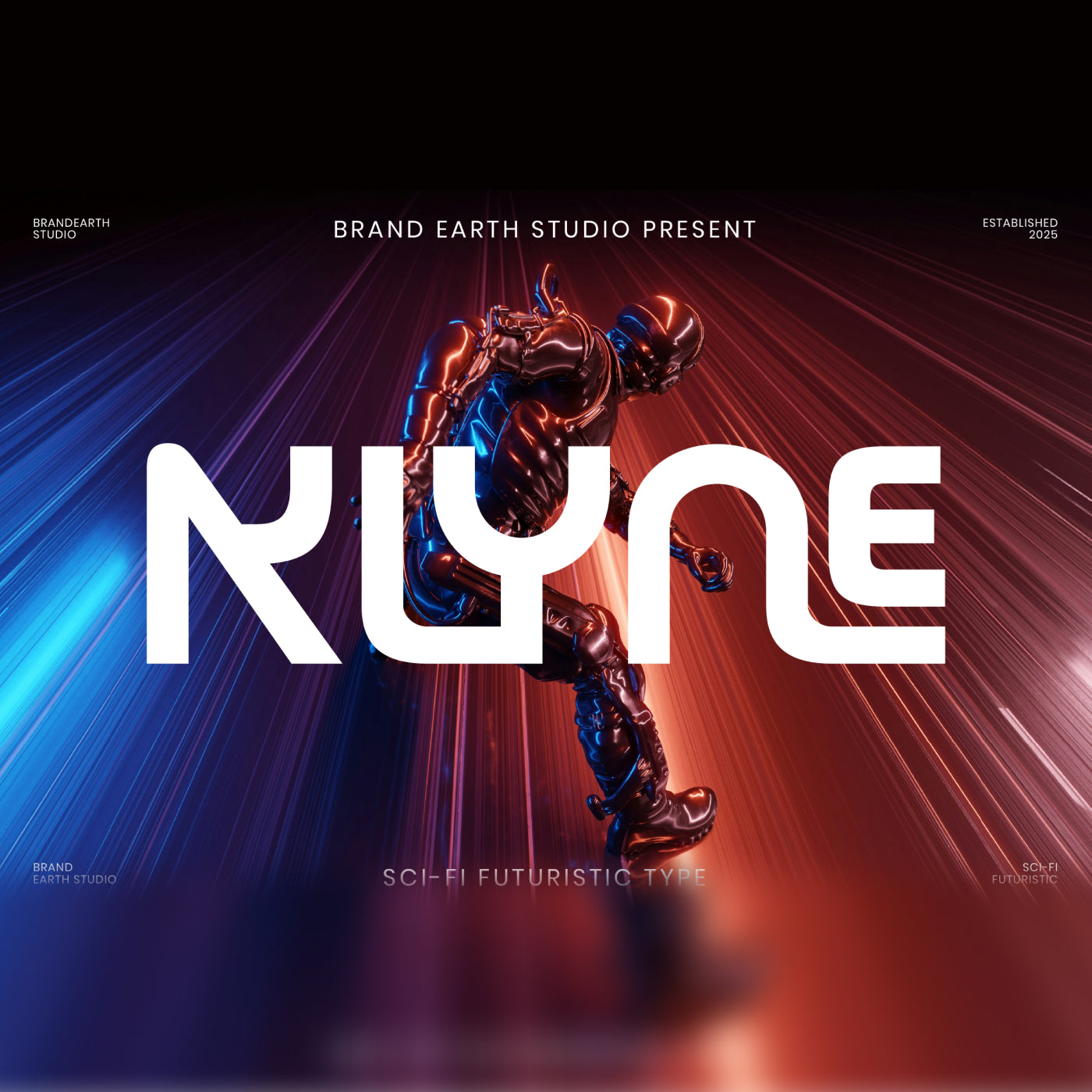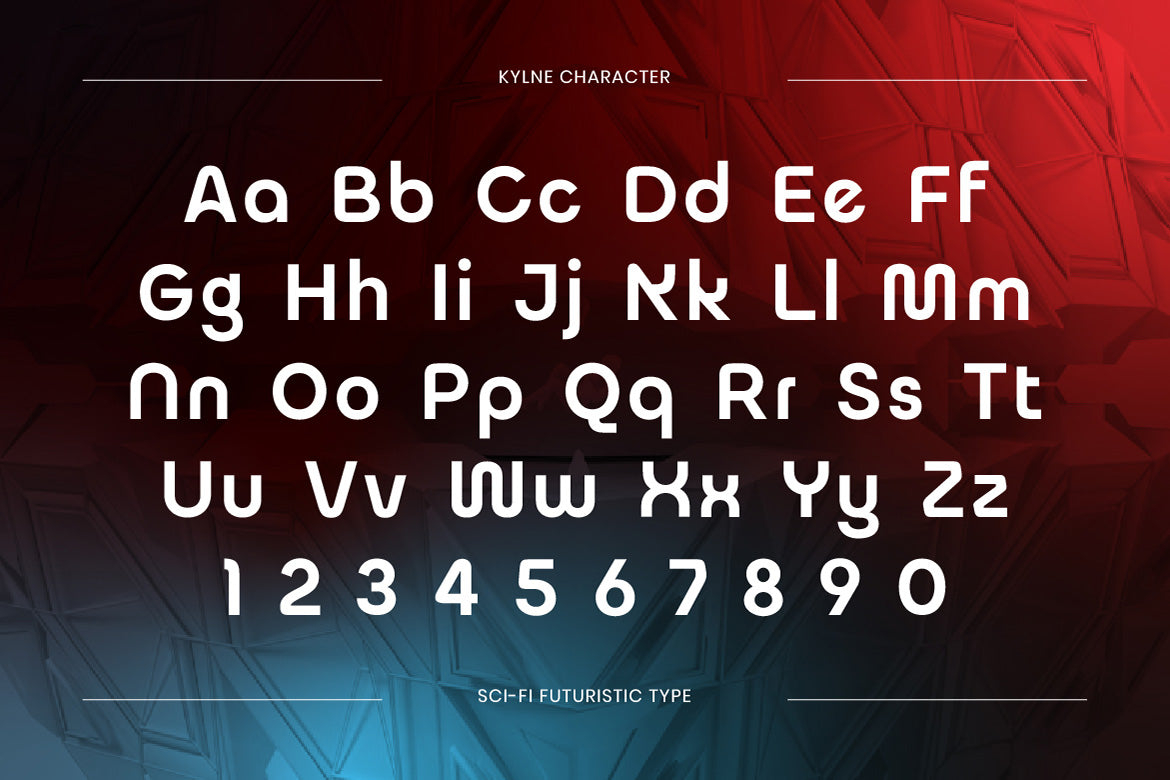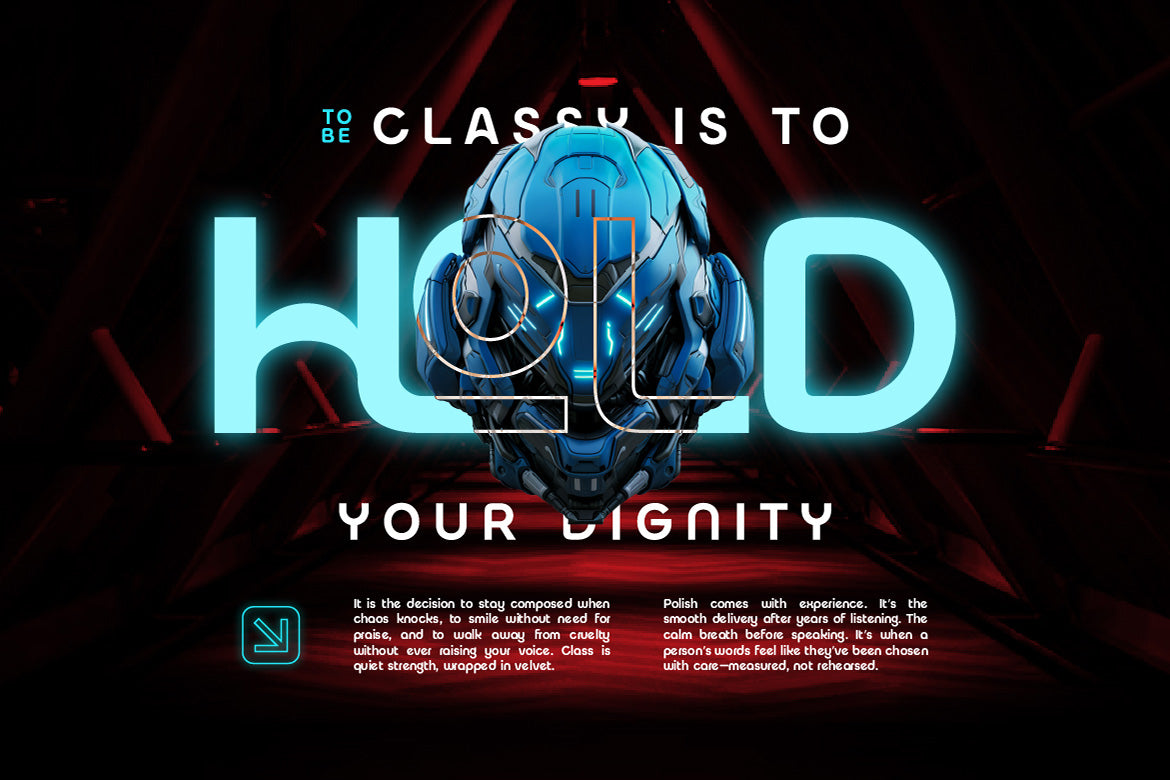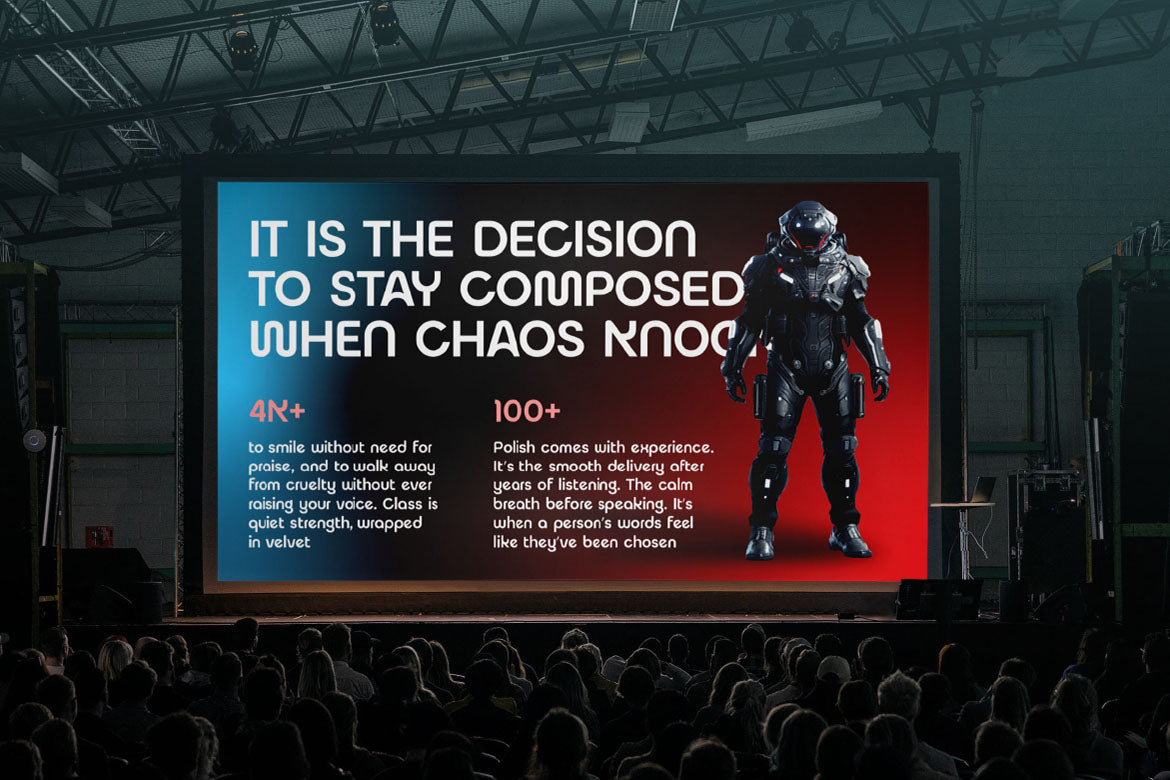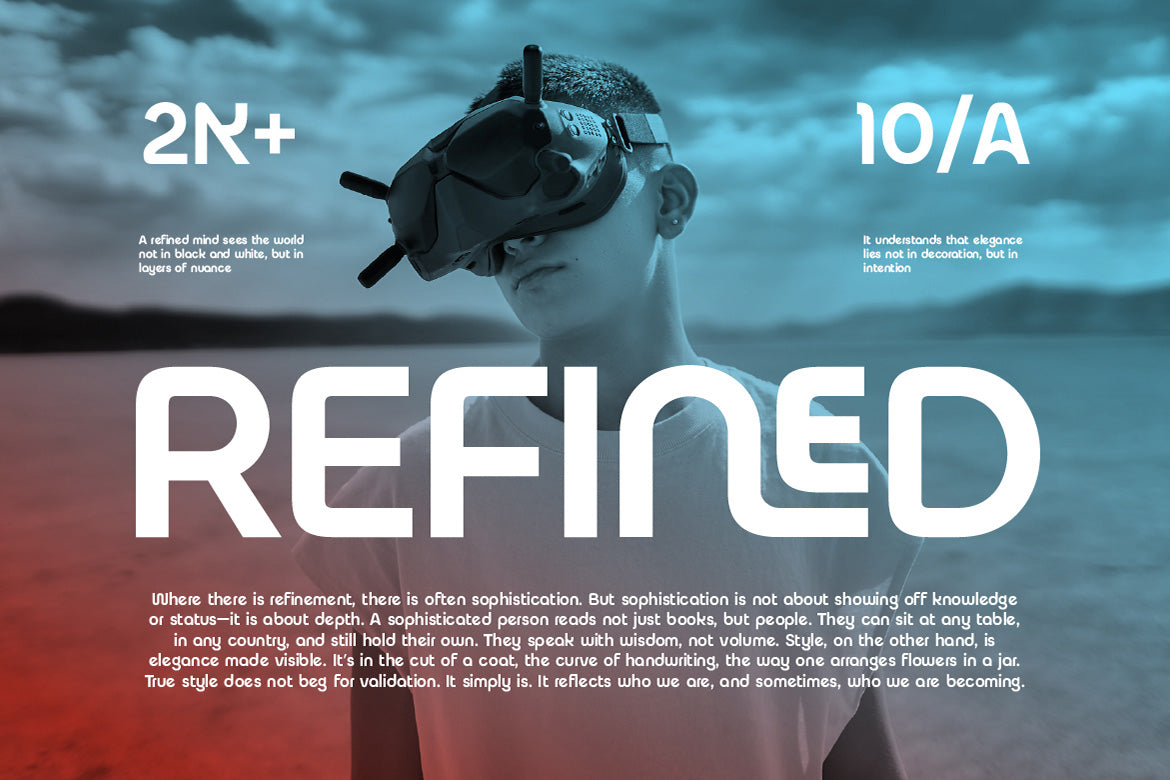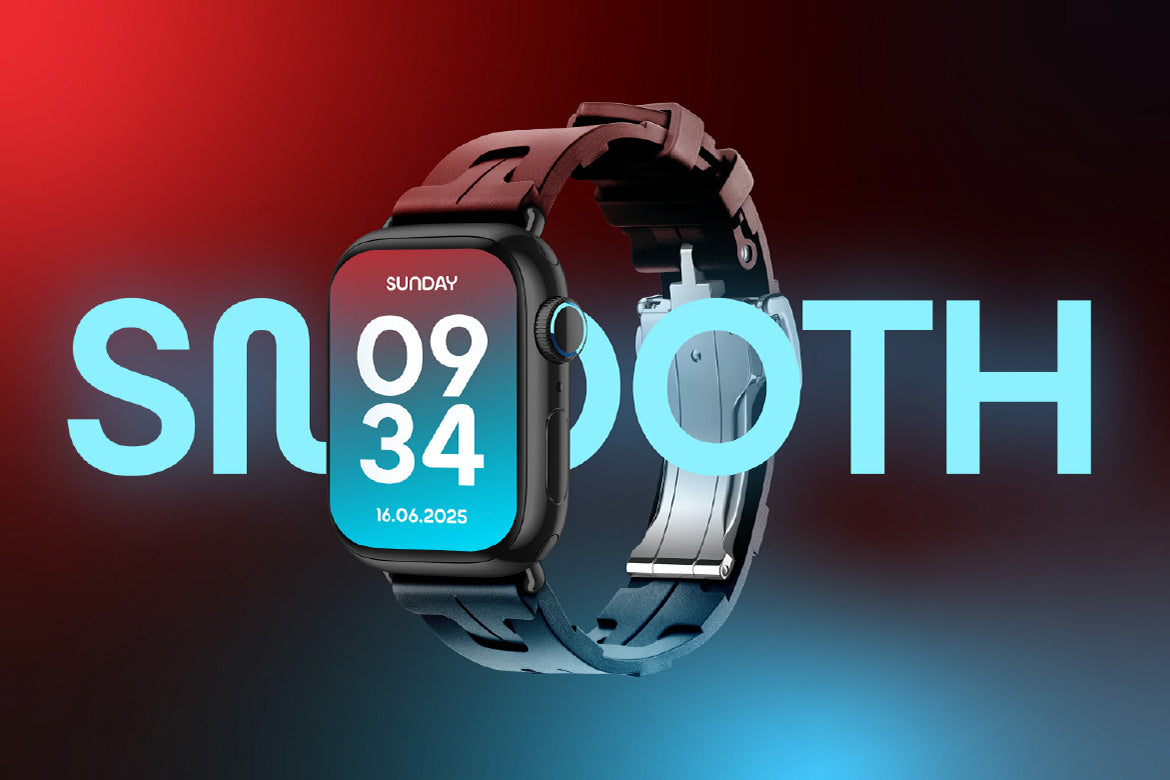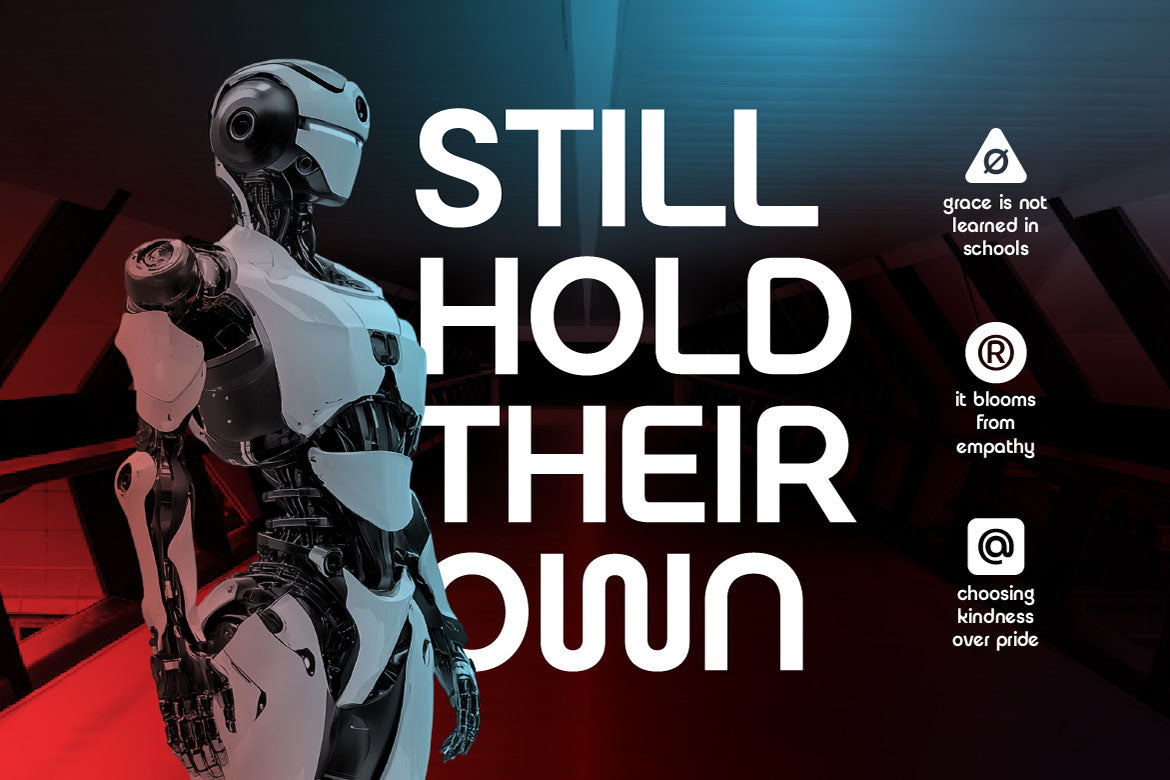
Klyne Scifi Futuristic Type Font
Klyne is a futuristic sci-fi font crafted for bold, high-tech visual projects. With its sleek curves, modular letterforms, and digital edge, it’s perfect for cyberpunk posters, modern tech branding, futuristic logos, or UI displays. Designed with clarity and innovation in mind, NLYNE delivers a forward-thinking aesthetic ideal for gaming titles, product packaging, and sci-fi interfaces. This font bridges the gap between advanced technology and modern design, making your message feel cutting-edge and immersive.
Klyne is a futuristic sci-fi typeface featuring sleek curves and modular letterforms, available in TTF, OTF, and WOFF formats. It includes uppercase and lowercase characters, ligatures, alternates, numerals, punctuation, and multilingual support.